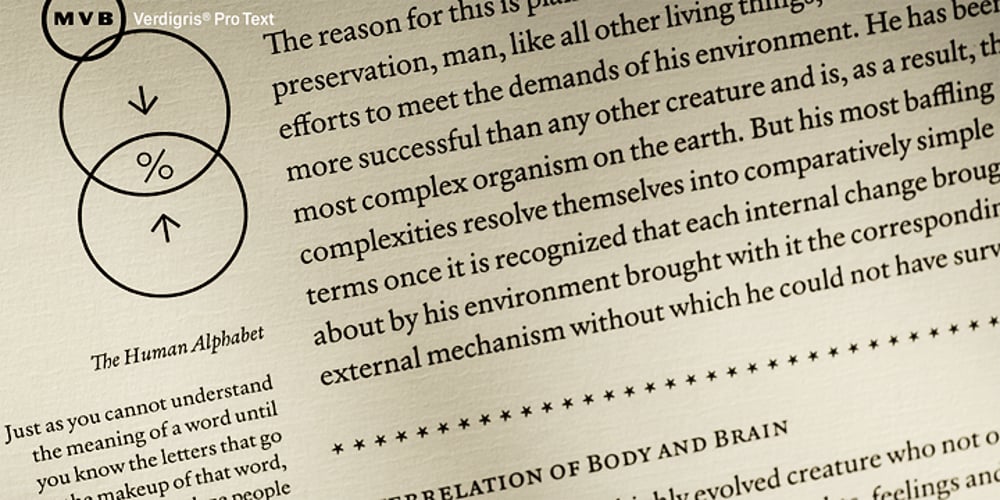
MVB Verdigris Pro
MVB Verdigris Pro font
MVB Verdigris Pro Font Family was designed by Mark van Bronkhorst and published by MVB. MVB Verdigris Pro contains 5 styles and family package options. Garalde: the word itself sounds antique and arcane to anyone who isn’t fresh out of design school, but the sort of typeface it describes is actually quite familiar to all of us. Despite its age—born fairly early in printing’s history—the style has fared well; Garaldes are still the typefaces of choice for books and other long reading. And so we continue to see text set in old favorites—Garamond, Sabon®, and their Venetian predecessor, Bembo®. Yet many new books don’t feel as handsome and readable as older books printed in the original, metal type. The problem is that digital type revivals are typically facsimiles of their metal predecessors, merely duplicating the letterforms rather than capturing the impression—both physical and emotional—that the typefaces once left on the page. MVB Verdigris is a Garalde text face for the digital age. Inspired by the work of 16th-century punchcutters Robert Granjon (roman) and Pierre Haultin (italic), Verdigris celebrates tradition but is not beholden to it. Created specifically to deliver good typographic color as text, Mark van Bronkhorst’s design meets the needs of today’s designer using today’s paper and press. And now, as a full-featured OpenType release, it’s optimized for the latest typesetting technologies too. With MVB Verdigris Pro Text, Van Bronkhorst has revisited the family, adding small caps to all weights and styles, extensive language support, and other typographic refinements. Among the features: • Support for most Latin-based languages, including those of Central and Eastern Europe. • Precision spacing and kerning by type editor Linnea Lundquist. The fonts practically set beautiful text by themselves. • Proportional and tabular figure sets, each with oldstyle and lining forms with currency symbols to match. • Ligatures to maintain even spacing while accommodating Verdigris’ elegant, sweeping glyphs. • Numerators and denominators for automatic fractions of any denomination. • Useful, straightforward dingbats including arrows, checkboxes, and square and round bullets in three sizes. • Alternative ‘zero’ and ‘one’ oldstyle figures for those who prefer more contemporary versions over the traditional forms. • An alternative uppercase Q with a more reserved tail. • An optional, roman “Caps” font providing mid-caps, useful for titling settings, and for those situations when caps seem too big and small caps seem too small. __________ Sabon is a trademark of Linotype Corp. Bembo is a trademark of the Monotype Corporation.